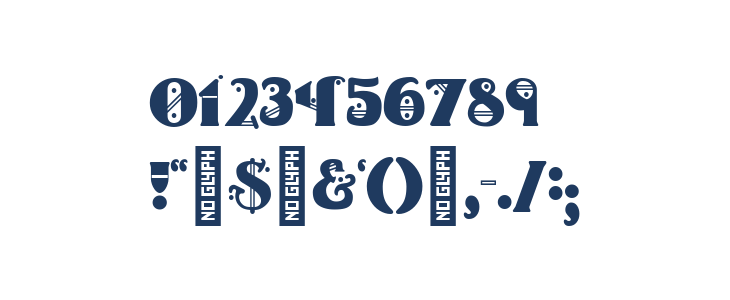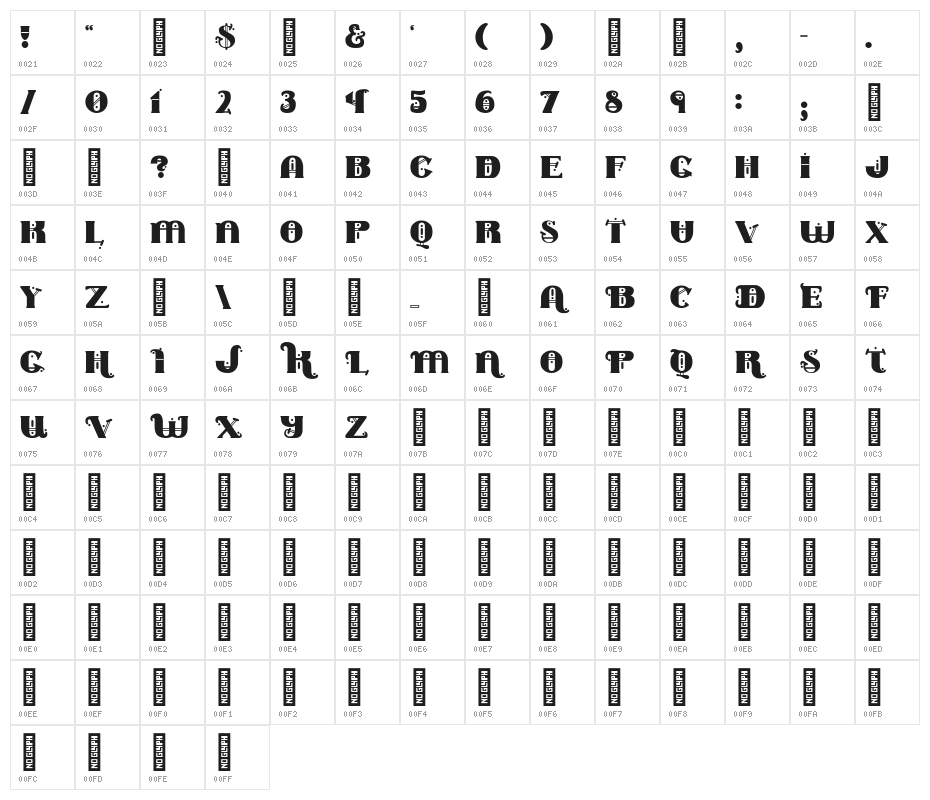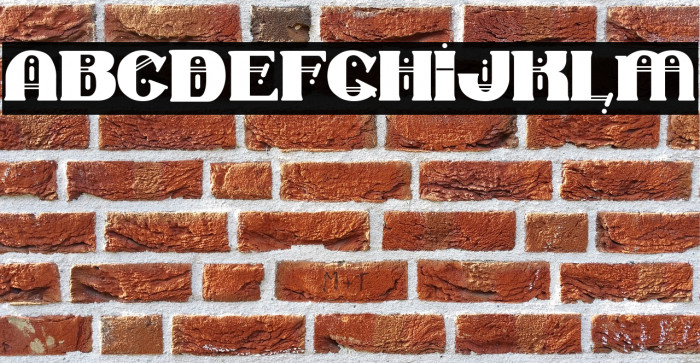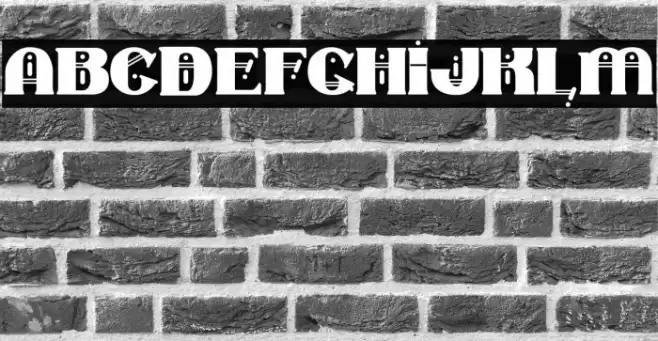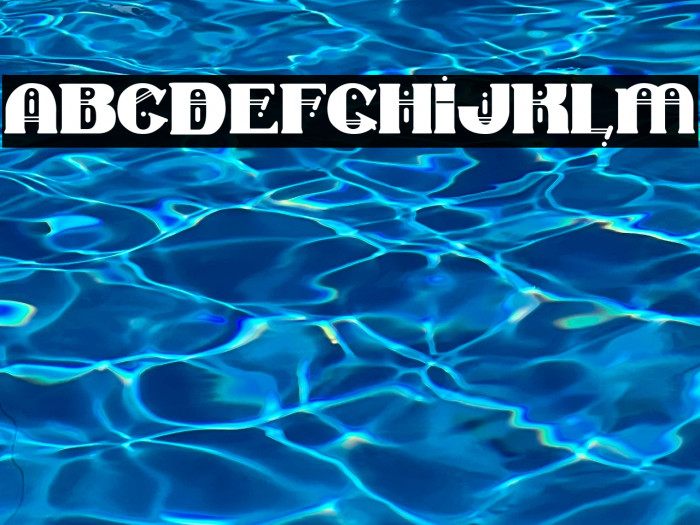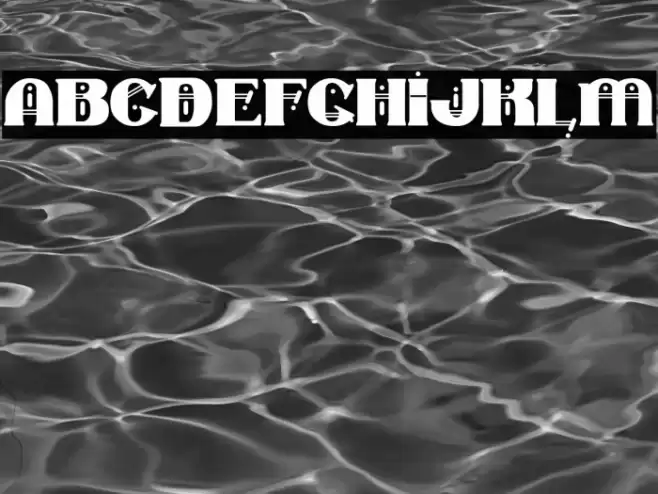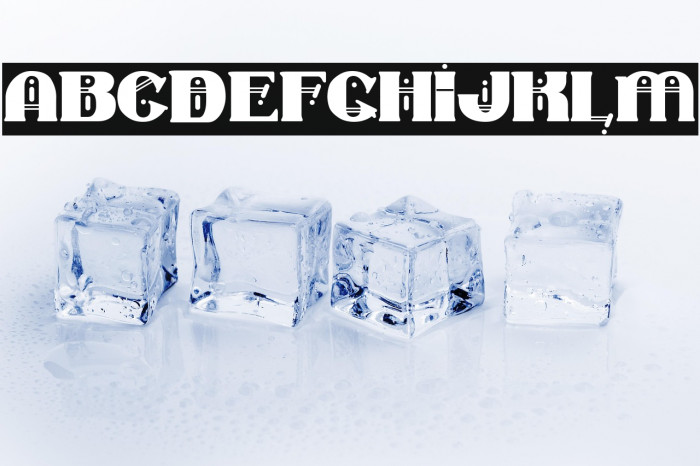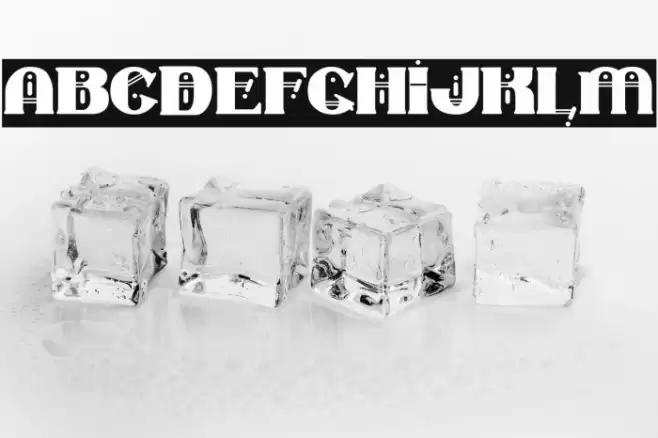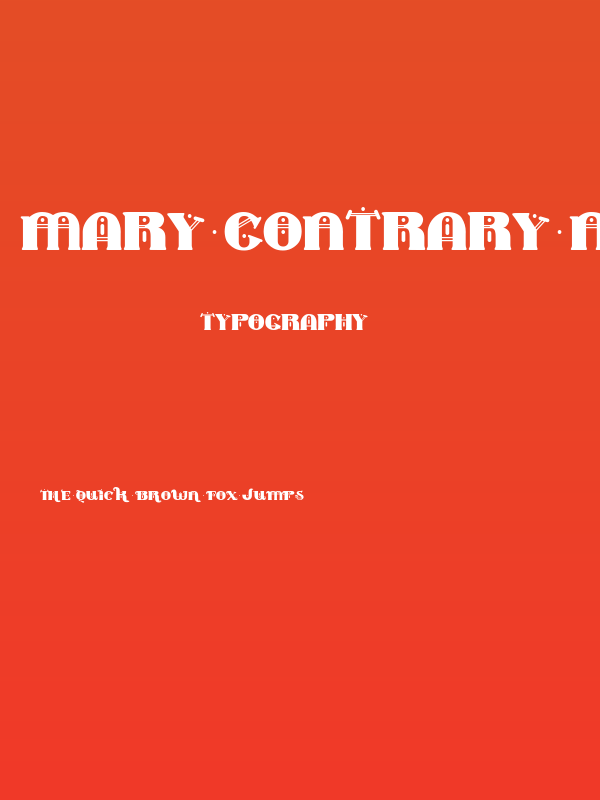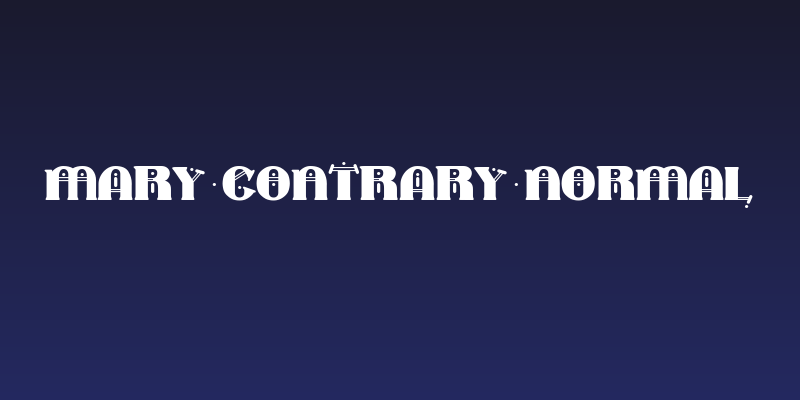
MARY CONTRARY Normal Font
MARY CONTRARY Normal Description
This font features a bold and decorative style with intricate detailing within each character. The letters are characterized by a combination of thick and thin strokes, creating a high contrast that adds to its visual appeal. The design incorporates unique embellishments, such as dots and lines, which give it a whimsical and artistic flair. The overall appearance is both modern and vintage, making it suitable for creative and eye-catching designs. The characters are well-spaced, providing a balanced and readable text, even with its decorative elements.
| Overall Style | Modern, Vintage |
| Proposed Projects | Ideal for use in posters, logos, branding, and any project requiring a standout, artistic typeface. |